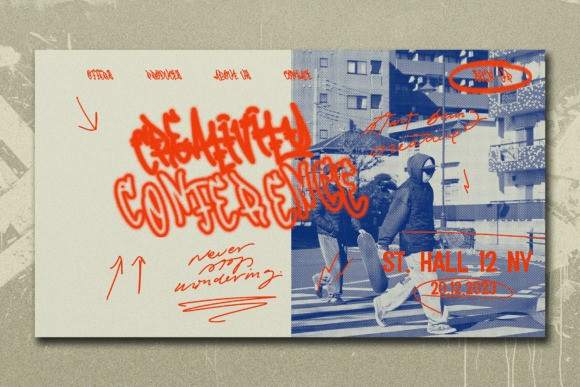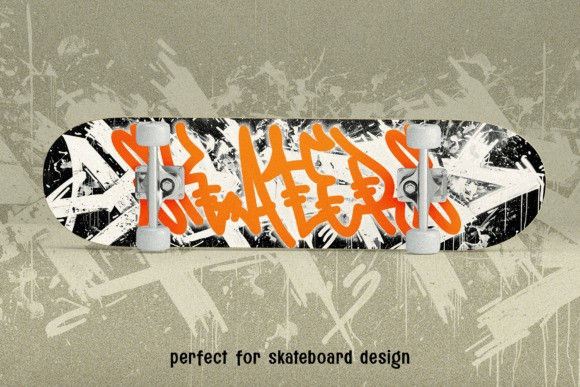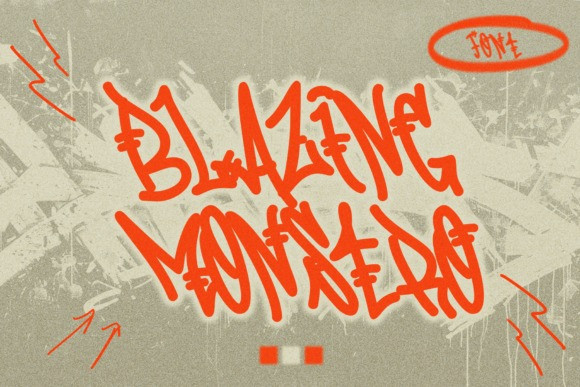
Blazing Monstro Font
Blazing Monstro Font a genuine monoline graffiti font handcrafted to perfection. This gem flawlessly mirrors the fluid, organic strokes that embody the heart and soul of genuine graffiti art. Its naturally rustic, city-centric persona is just what you need for designs with an urban edge.
“Blazing Monstro” breathes life into apparel designs, album covers, posters, and digital media projects, delivering a dynamic and avant-garde ambiance. Turn heads with captivating headlines and infuse an undeniable dash of daring charm in any design.
Let “Blazing Monstro” make your creations not just visible, but unforgettable.